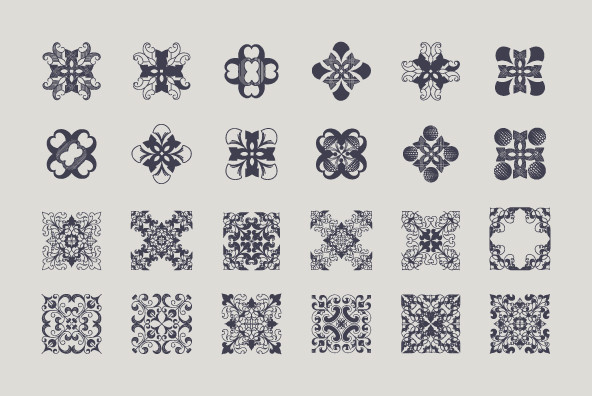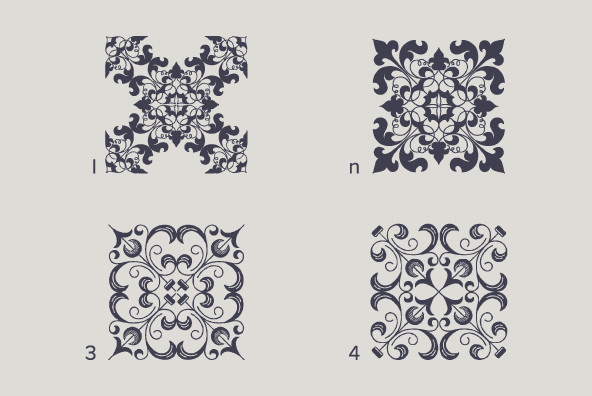
Derriey Vignettes 1
This is the Intellecta’s digitization of the fantastic heritage by Charles Derriey. Besides the original ornaments and fleurons, our collection has new interpretations and new designs based in the original work. A tour-de-force by Iza W.